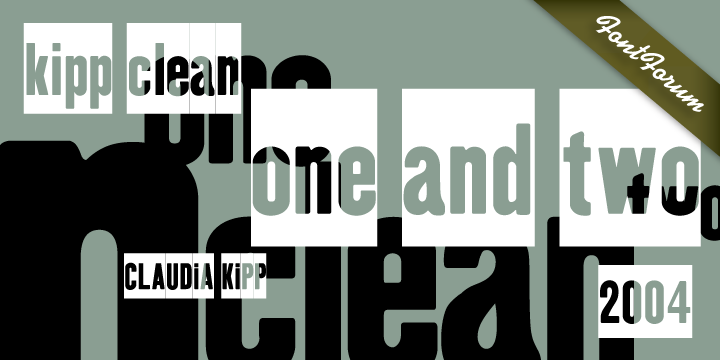
Kipp Clean Font is perfect for healthcare branding, pharmaceutical packaging, medical device interfaces, wellness center signage, clean beauty products, eco-friendly brand identities, minimalist app designs, and modern clinical documentation.
Kipp Clean Font is exciting because it embodies the essence of purity and precision with its immaculately crafted letterforms that radiate trust, clarity, and professional reliability. The typeface channels the confidence of medical expertise and the serenity of wellness environments, creating an immediate sense of safety and competence that resonates with health-conscious audiences.
Kipp Clean Font family includes Light, Regular, Medium, Bold, and Black weights, each with matching italic styles and extensive medical symbol support, providing designers with comprehensive tools for creating trustworthy healthcare communications that prioritize readability and patient comfort.
Whether you're developing a medical practice's brand identity, designing pharmaceutical product information, or creating wellness app interfaces, Kipp Clean Font Free Download offers unmatched clarity and professional credibility. This exceptional typeface combines clinical precision with human warmth, ensuring your health-related communications inspire confidence while maintaining accessibility for diverse patient populations. The font's optimized legibility and calming character structure make it particularly effective for medical environments where clear communication can literally save lives. Healthcare marketing professionals consistently choose Kipp Clean Font when projects require typography that communicates expertise, safety, and caring professionalism, making it an indispensable resource for medical branding, pharmaceutical communications, and any application where clean, trustworthy typography can enhance patient experience and convey the highest standards of healthcare excellence and compassionate care.